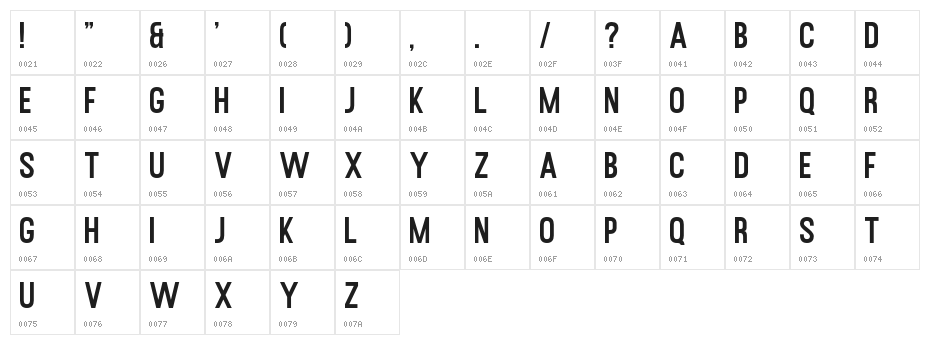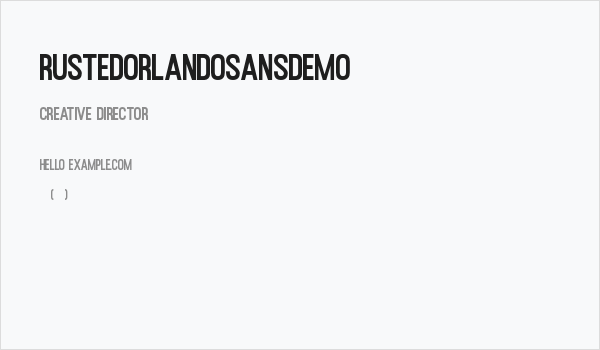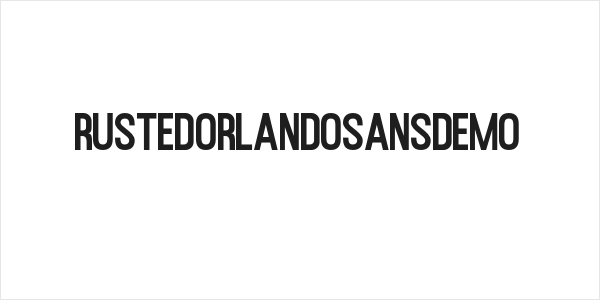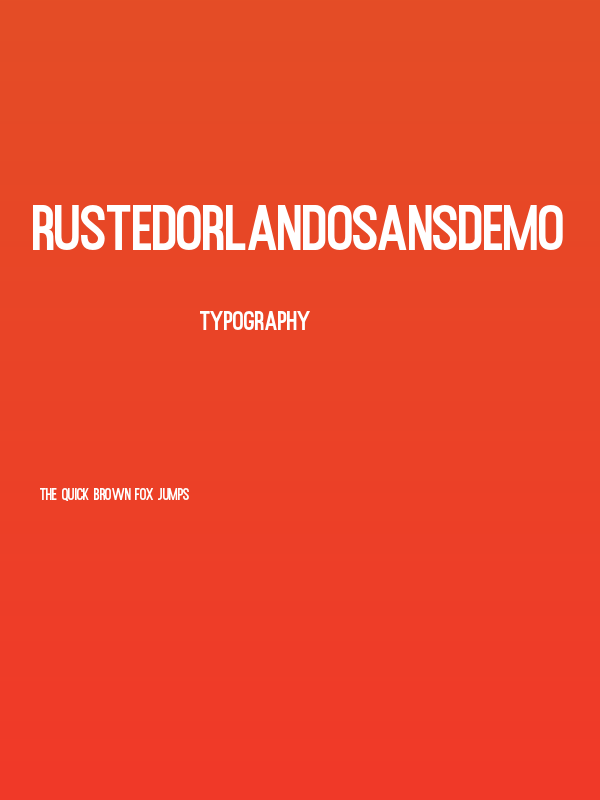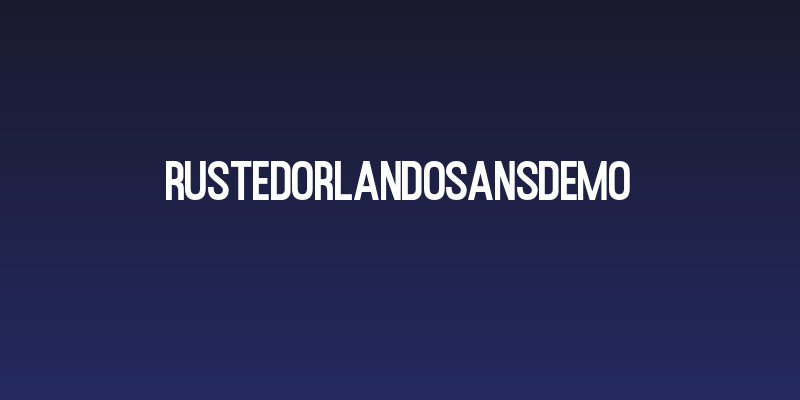
RustedOrlandoSansDemo Font
RustedOrlandoSansDemo Description
This font features a bold, sans-serif style with a strong presence and clean lines. The characters are uniformly thick, providing a consistent and modern look. The uppercase letters are tall and commanding, while the lowercase letters maintain a similar width, ensuring readability. The numbers and special characters are designed to match the overall aesthetic, with a straightforward and uncluttered appearance. The font's geometric structure and uniformity make it suitable for a variety of design applications.
| Proposed Projects | Ideal for branding, advertising, headlines, and posters where a bold statement is needed. |